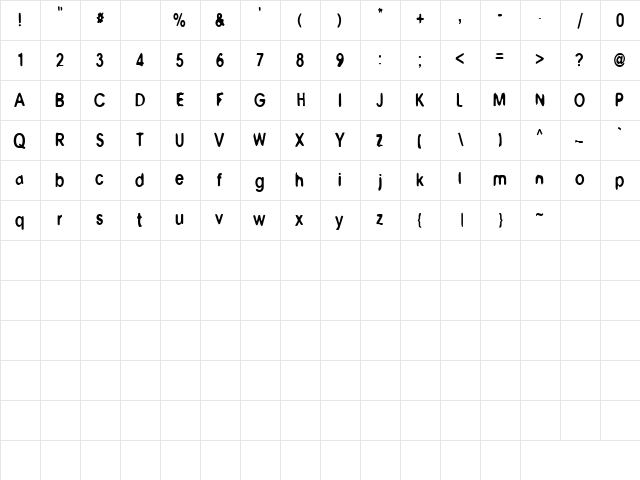
M6 Bold Font Preview
M6 Bold
M6 Bold Font Details
Design Context for M6 Typeface
M6 takes a measured approach to typography — its balanced proportions and neutral character make it a reliable workhorse for both digital and print work. Its bold stroke weight gives it real presence on the page.